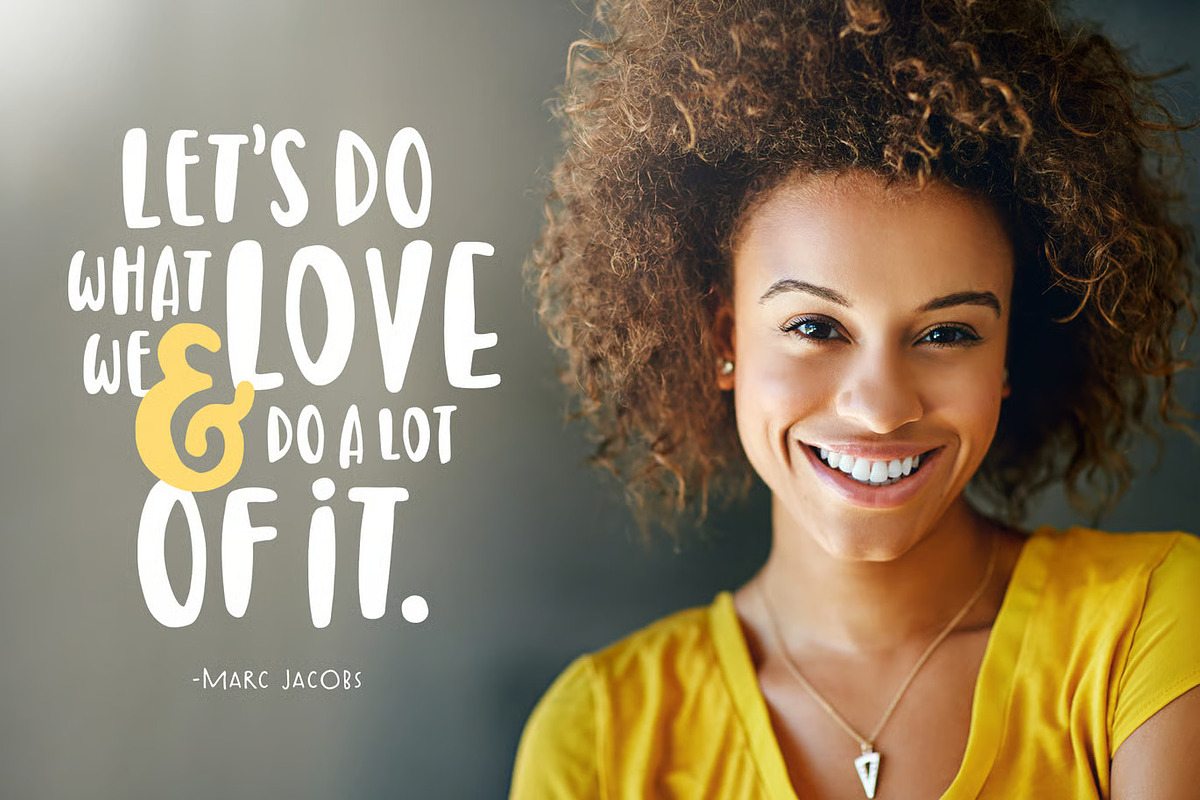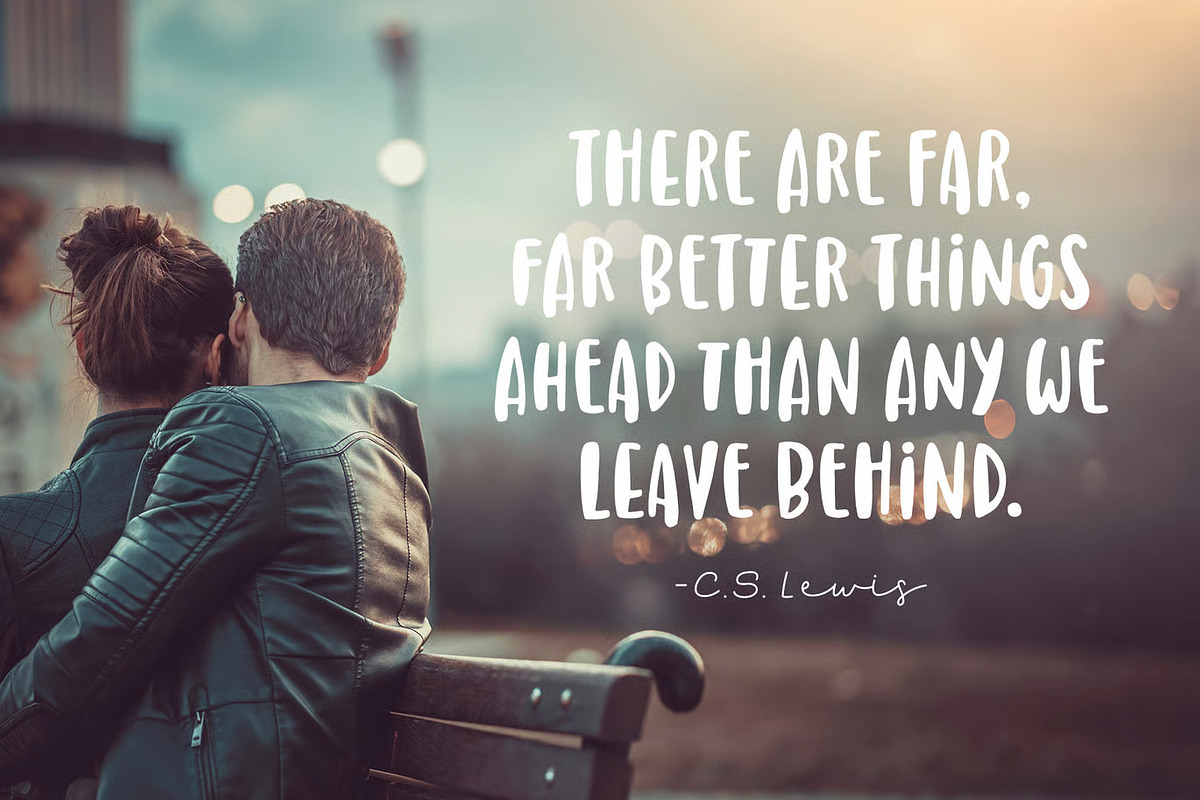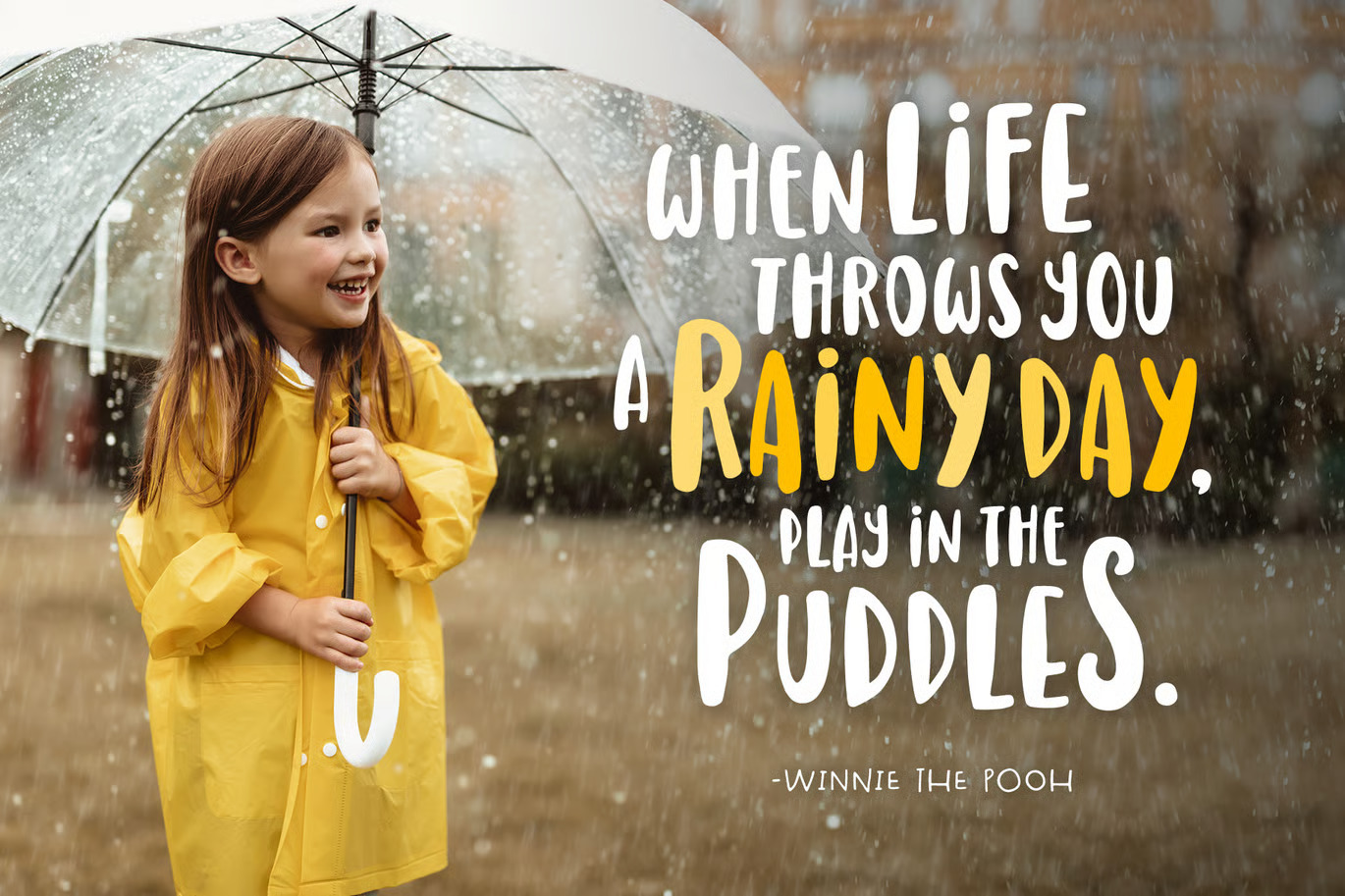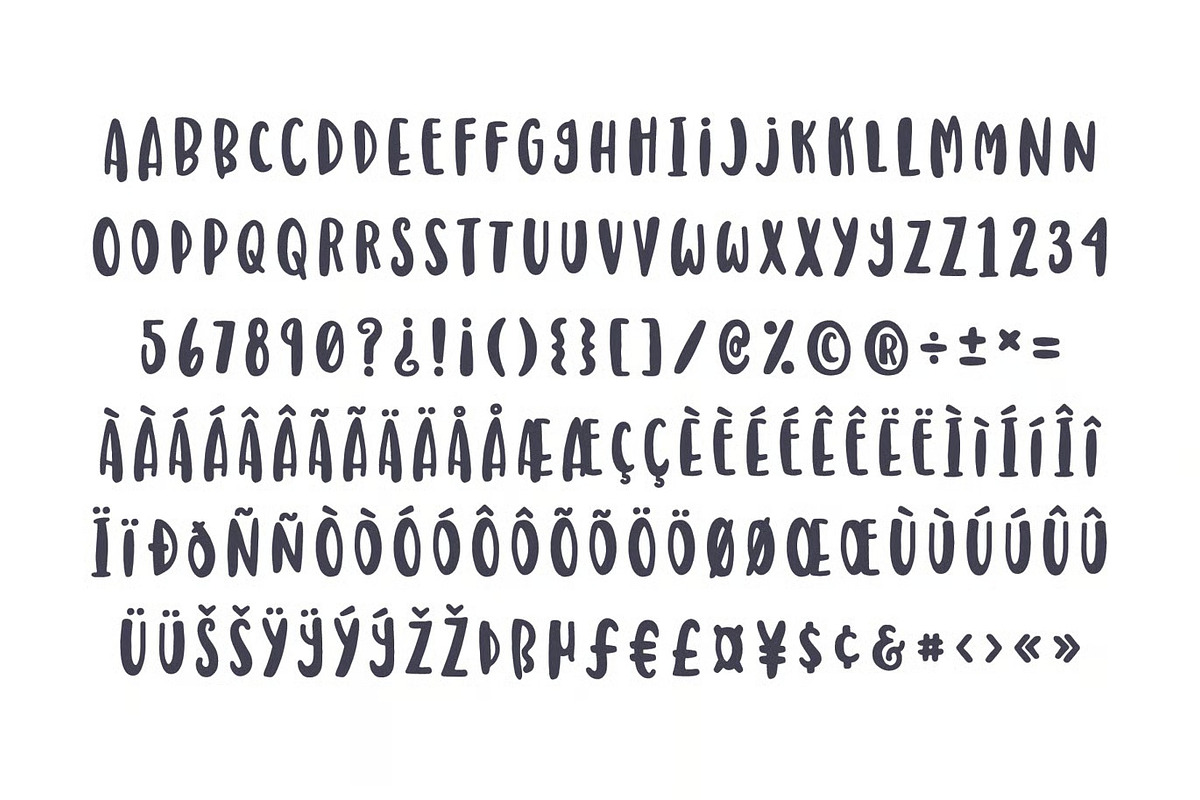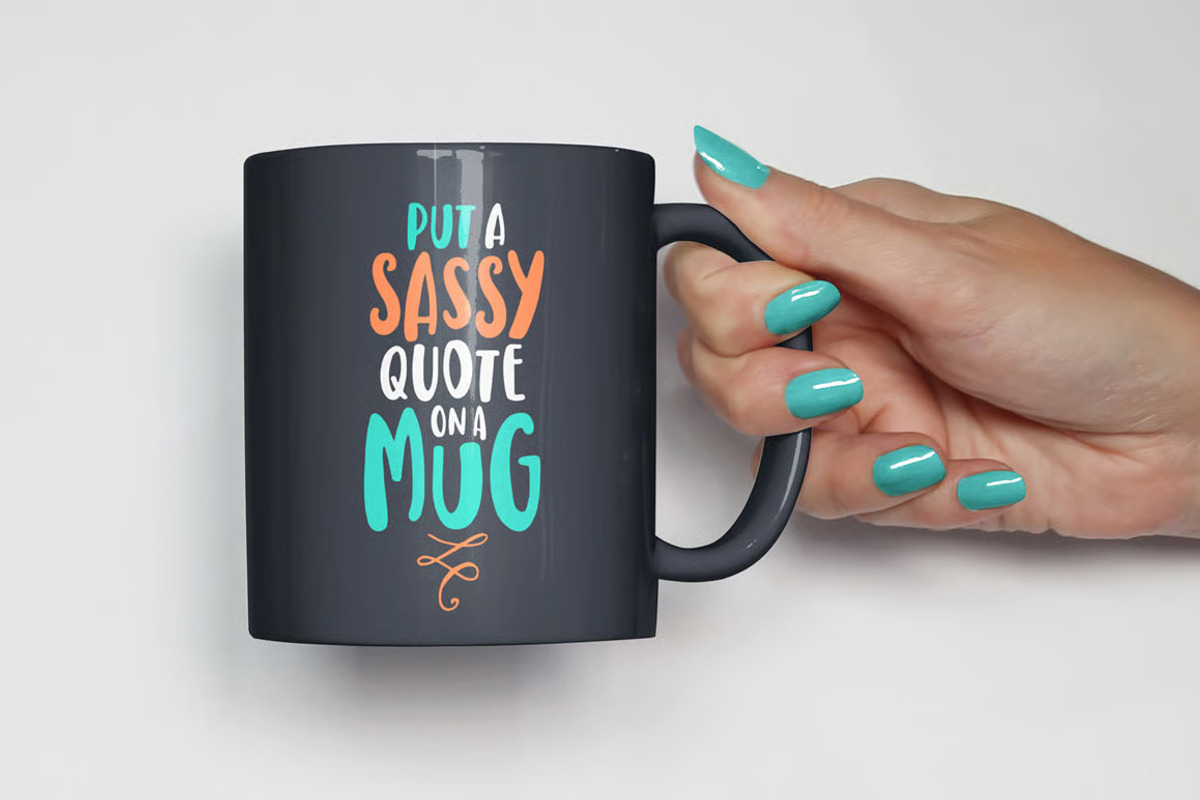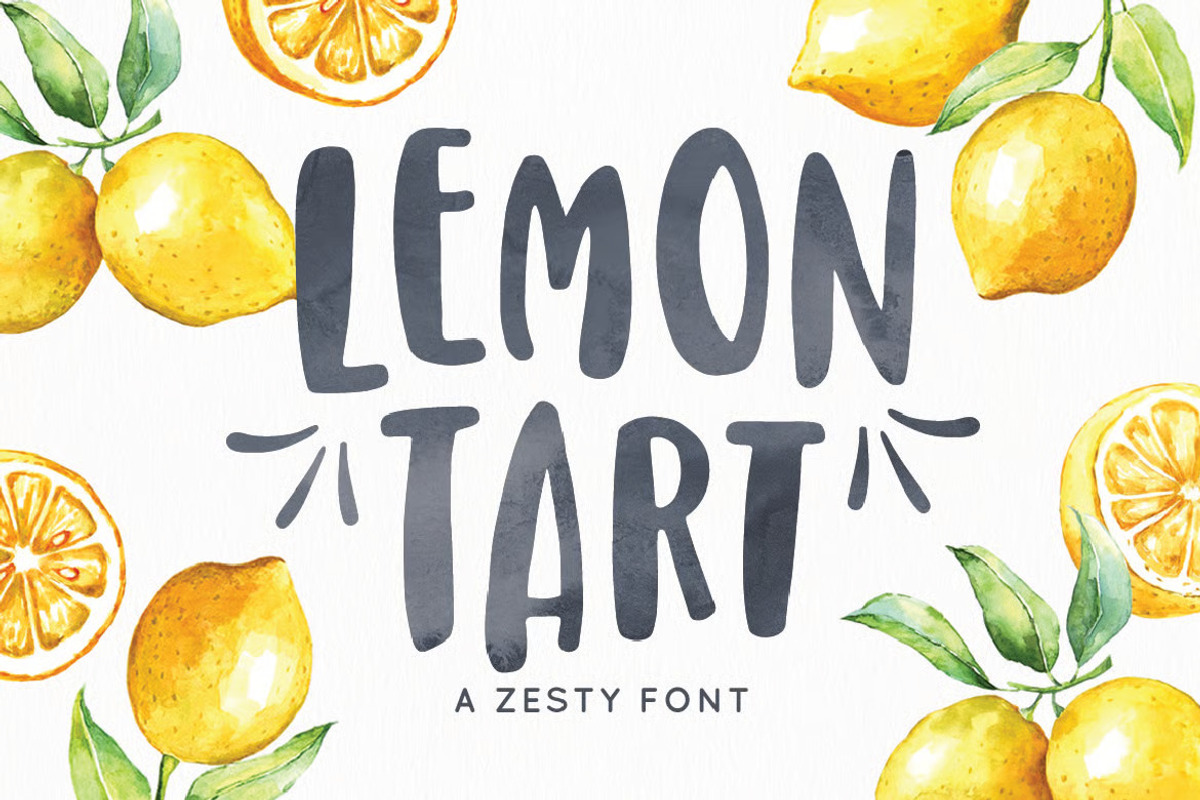
Tart Lemon Font Sans Serif
Tart Lemon is a sweet, hand-drawn, sans serif. It is an all-caps font which includes 2 variations of each uppercase letter (accessed with upper and lowercase keys). It has a condensed and bold style that can make a statement on any project.